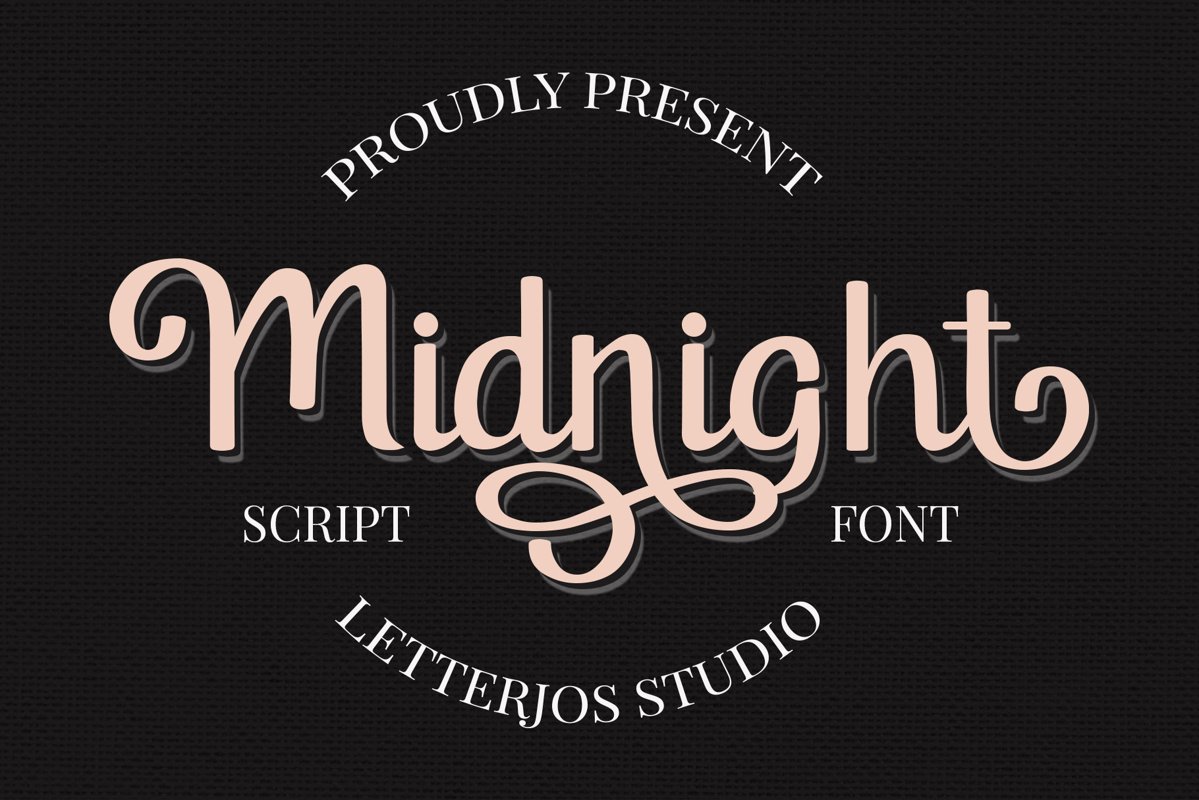
Midnight Script Font
Midnight is beautiful and elegant script font. Each glyph has its own uniqueness and when meeting with others will provide dynamic and pleasing proximity. Midnight font also come with alternate style to make its style more unique and elegant.
Midnight script font will be perfect for your projects such as header design, quotes, poster design, branding, promotional materials, logotype, product packaging, etc.